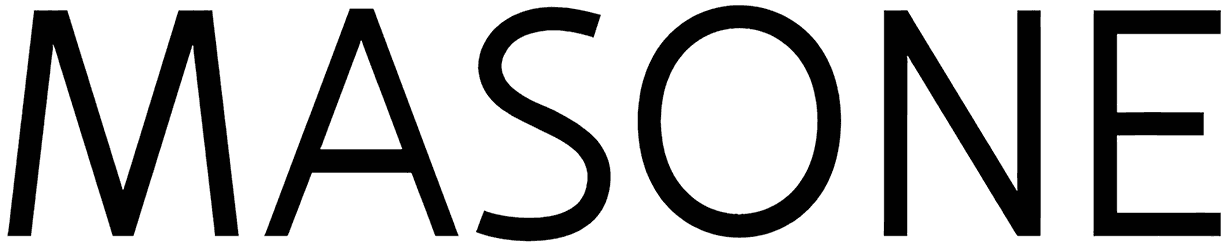
Masone Font
If you want to give your project an original and confident outward appearance, choosing a sans-serif font will be a suitable selection. This item, with its unique modest form, can provide this vibe for your words. As an all-purpose font with a full cover of characters, Masone font can be used for short or long designs, namely presentations, magazines, books, or many others.